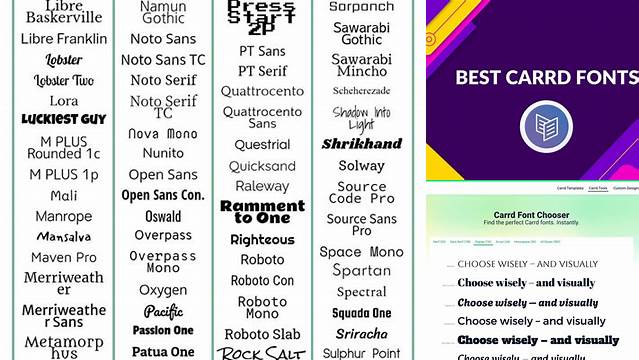
Carrd Fonts: The Ultimate Guide For Stunning Typography
Are you looking to create a stunning website using Carrd but feeling overwhelmed by the font choices? Don't worry, guys! You're not alone. Typography is a crucial element of web design, and selecting the right fonts can make or break your site's overall aesthetic and readability. This guide will provide you with a comprehensive Carrd fonts list, exploring various font options and offering tips on how to choose the perfect typography for your Carrd website. Let's dive in and explore the world of Carrd fonts!
What are Carrd Fonts?
Before we jump into the list, let's clarify what exactly Carrd fonts are. Carrd offers a curated selection of fonts that you can use directly within their platform. These fonts are readily available, making it easy to experiment and implement different typography styles without needing to upload custom fonts. The selection includes a variety of styles, from classic serifs to modern sans-serifs, ensuring there's something for every design aesthetic. Understanding the range of carrd fonts available is the first step in creating a visually appealing website.
Why are Fonts Important for Your Carrd Website?
Fonts play a significant role in conveying your brand's personality and message. The right font can create a professional, friendly, or sophisticated feel, impacting how visitors perceive your website. Imagine a law firm using a playful, cartoonish font – it wouldn't inspire much confidence, right? Similarly, a creative blog using a formal, serif font might feel a bit out of place. Choosing the correct carrd fonts helps establish your brand identity and enhances the overall user experience. In this guide, we'll explore how different fonts can influence your website's tone and message. Furthermore, readability is paramount; selecting legible fonts ensures your content is easily digestible, keeping visitors engaged. This aspect is just as important as the aesthetic appeal.
How to Access Fonts in Carrd
Accessing fonts in Carrd is super straightforward. Once you're in the Carrd editor, simply select the text element you want to style, and then navigate to the "Appearance" settings. Here, you'll find a dropdown menu listing all the available carrd fonts. You can easily browse through the options and preview how each font looks on your website in real-time. Carrd makes it user-friendly to experiment with different fonts and find the perfect match for your design. You can also adjust font sizes, weights, and other styling options to further customize your typography. We'll cover these customization options in more detail later.
H2: Serif Fonts on Carrd
Serif fonts are characterized by the small decorative strokes (serifs) at the end of each character. They often convey a sense of tradition, elegance, and authority, making them suitable for professional websites, blogs, or portfolios that aim to project a classic and trustworthy image. On Carrd, several excellent serif fonts are available, each with its unique personality. Understanding serif carrd fonts is key to creating a sophisticated and readable website. The impact these fonts have on the overall design is undeniable, and they’re often seen as a staple for certain industries. For example, Times New Roman is a classic serif font that's known for its readability and professional appearance. However, it can sometimes feel a bit dated, so it's essential to consider other options as well. Other notable serif fonts include Georgia, which is designed for screen readability, and Playfair Display, which exudes elegance and works well for headings and titles. When selecting a serif font, think about the overall tone you want to convey. Do you want a traditional and formal look, or something a bit more modern and approachable? The right choice can make a significant difference in how your content is perceived. Experimenting with different serif fonts within the Carrd editor is the best way to find the perfect fit for your project. Don't be afraid to try out various combinations and see what resonates with your brand and target audience. Remember, the goal is to create a visually appealing and easily readable website.
H2: Sans-Serif Fonts on Carrd
Sans-serif fonts, lacking the decorative strokes found in serif fonts, offer a clean, modern, and minimalist aesthetic. They are highly readable on screens, making them a popular choice for websites, especially for body text. Carrd boasts a wide array of sans-serif carrd fonts, catering to diverse design preferences. Choosing the right sans-serif font can significantly impact the user experience. For example, Open Sans is a widely used sans-serif font known for its versatility and readability across different devices. It’s a great option for body text and headings alike. Another popular choice is Montserrat, a geometric sans-serif font that exudes a modern and stylish vibe. It’s often used in website headers and titles to create a strong visual impact. Roboto is another excellent option, known for its clean lines and contemporary feel. It works well for both headings and body text, making it a versatile choice for any Carrd website. When selecting a sans-serif font, consider the overall style and tone of your website. Do you want a clean and minimalist look, or something a bit more bold and impactful? Think about the target audience and the message you want to convey. Sans-serif fonts are often associated with modernity and simplicity, making them a great choice for tech startups, creative agencies, and personal portfolios. Experimenting with different weights and styles within the Carrd editor can help you create a unique and visually appealing design. Don't be afraid to mix and match different fonts to achieve the desired effect.
H2: Display Fonts on Carrd
Display fonts are designed to grab attention and make a statement. They are often used for headings, titles, and other prominent elements on a website. While not typically suitable for body text due to their often ornate or unique designs, display carrd fonts can add a touch of personality and flair to your Carrd website. Carrd offers a selection of display fonts that can help you create a memorable and eye-catching design. Using display fonts effectively requires careful consideration. Overusing them can make your website look cluttered and overwhelming. Instead, use them sparingly to highlight key elements and create visual interest. For instance, a bold and unique display font can be used for your website’s header to make a strong first impression. When choosing a display font, consider the overall style and tone of your website. A playful and whimsical font might be suitable for a children’s website, while a more elegant and sophisticated font might be better for a luxury brand. The key is to select a font that complements your brand identity and resonates with your target audience. Explore the different display fonts available in Carrd and experiment with different combinations to find the perfect match for your project. Remember, the goal is to create a visually appealing and engaging website that stands out from the crowd.
H2: Monospace Fonts on Carrd
Monospace fonts, where each character occupies the same horizontal space, are often associated with coding, terminals, and vintage typewriters. They can add a unique and technical feel to your Carrd website, making them suitable for portfolios showcasing programming projects, developer blogs, or websites with a retro aesthetic. Carrd includes several monospace carrd fonts that can help you achieve this look. While monospace fonts might not be the most versatile option for all websites, they can be highly effective in specific contexts. For example, using a monospace font for code snippets or command-line examples can enhance readability and make your website more user-friendly for developers. Similarly, incorporating a monospace font into a header or title can create a distinctive and memorable design. When using monospace fonts, it’s essential to consider the overall readability and visual appeal. Overusing them can make your website look monotonous and difficult to read. Instead, use them strategically to highlight specific elements and create visual interest. Experiment with different monospace fonts and combinations within the Carrd editor to find the perfect balance. Think about the message you want to convey and the target audience you’re trying to reach. A well-chosen monospace font can add a touch of authenticity and professionalism to your website.
H2: Font Pairing Tips for Carrd
Font pairing, the art of combining different fonts harmoniously, is crucial for creating visually appealing and readable websites. Choosing the right font pairings can elevate your Carrd website from looking amateurish to professional. A good font pairing enhances readability, establishes visual hierarchy, and reinforces your brand's personality. Pairing carrd fonts effectively involves understanding the contrast and compatibility between different font styles. A common strategy is to pair a serif font with a sans-serif font. For example, you might use a serif font for headings and a sans-serif font for body text. This combination creates a clear visual distinction and improves readability. Another approach is to use different weights and styles of the same font family. For instance, you could use a bold font for headings and a regular weight for body text. This creates a cohesive and consistent look while still providing visual interest. When selecting font pairings, it’s essential to consider the overall tone and style of your website. A classic and elegant website might benefit from a serif and sans-serif pairing, while a modern and minimalist website might use two different sans-serif fonts. Experiment with different combinations within the Carrd editor to find the perfect match for your project. Pay attention to how the fonts look together and whether they complement each other. A well-chosen font pairing can significantly enhance the overall user experience and make your website more engaging.
H2: Carrd Font Size and Spacing
Font size and spacing play a crucial role in the readability and visual appeal of your Carrd website. Choosing the right font size ensures that your content is easily legible, while proper spacing enhances the overall clarity and aesthetics. These are important considerations for carrd fonts. The ideal font size depends on several factors, including the font style, the type of content, and the target audience. Generally, a font size of 16px to 18px is recommended for body text to ensure optimal readability on screens. Headings and titles should be larger to create visual hierarchy and draw attention to key elements. Experiment with different font sizes within the Carrd editor to find the perfect balance for your website. Spacing, including line height and letter spacing, is equally important. Line height, the vertical space between lines of text, should be sufficient to prevent lines from feeling cramped. A general guideline is to set the line height to 1.5 to 2 times the font size. Letter spacing, the horizontal space between characters, can also impact readability. Too little spacing can make the text look crowded, while too much spacing can make it difficult to read. Adjusting the letter spacing slightly can improve the overall visual appeal of your website. Carrd provides options to customize font size, line height, and letter spacing, allowing you to fine-tune your typography for optimal readability and visual impact. Remember, the goal is to create a comfortable and engaging reading experience for your visitors.
Conclusion: Mastering Carrd Fonts for Stunning Websites
Mastering Carrd fonts is essential for creating stunning websites that effectively communicate your message and captivate your audience. By understanding the different types of fonts, font pairing principles, and typographic best practices, you can elevate your Carrd website from basic to brilliant. Let's reiterate some of the key takeaways regarding carrd fonts. Remember, typography is more than just choosing pretty fonts. It's about creating a cohesive visual experience that enhances readability, reinforces your brand identity, and engages your visitors. Take the time to experiment with different fonts, font sizes, and font styles within the Carrd editor. Don't be afraid to try new things and see what works best for your project. A well-chosen font can make a world of difference in the overall look and feel of your website. Utilize the tips and guidelines we've discussed in this comprehensive guide to make informed decisions about your typography. Pay attention to font pairings, visual hierarchy, and accessibility considerations. By mastering these fundamentals, you can create a Carrd website that not only looks great but also delivers a positive user experience. As you continue to explore the world of Carrd fonts, remember that the possibilities are endless. Embrace your creativity, experiment with different styles, and have fun creating a website that truly reflects your unique vision and brand. With the right fonts and a thoughtful approach to typography, you can create a Carrd website that stands out from the crowd and achieves your goals.